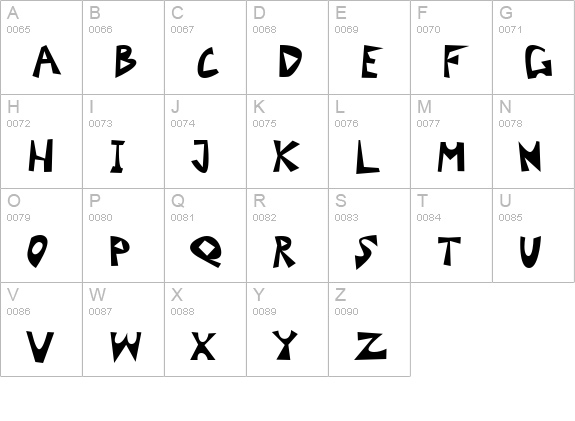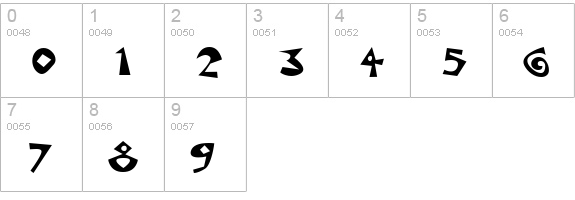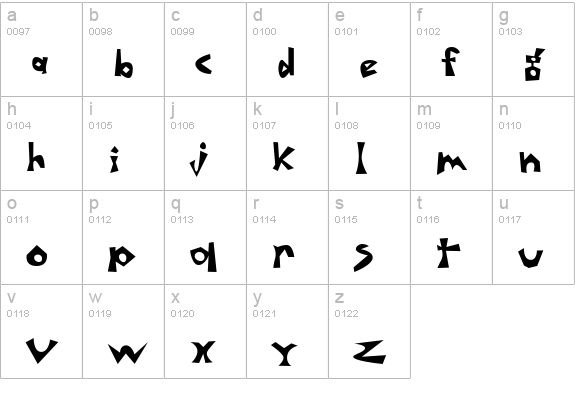
Speed Bump font is a stunning typography choice that effortlessly combines boldness with a touch of playfulness. Designed with attention to detail, this free font is perfect for adding a unique and eye-catching element to your designs. The Speed Bump font features a distinctive, geometric-inspired style that sets it apart from other fonts. With its clean lines and well-defined curves, it captures attention and creates a strong visual impact. Whether you're designing a logo, creating a poster, or crafting a digital artwork, this font will elevate your project to new heights. What makes Speed Bump font truly remarkable is its versatility. It can be used in both professional and personal projects, adding a touch of creativity and innovation. Whether you want to create a modern, sleek design or a fun and whimsical piece, this font has got you covered. Best of all, Speed Bump font is freely available to download at FontsMarket.com. This means that you can easily access and use this font in your projects without any restrictions. This font is a gift to designers, allowing them to explore their creativity without any cost limitations. So why not give your designs a boost with the Speed Bump font? Download it today from FontsMarket.com and experience the power of this incredible typeface. With its captivating style and limitless potential, this font is sure to become a valuable asset in your design toolkit.